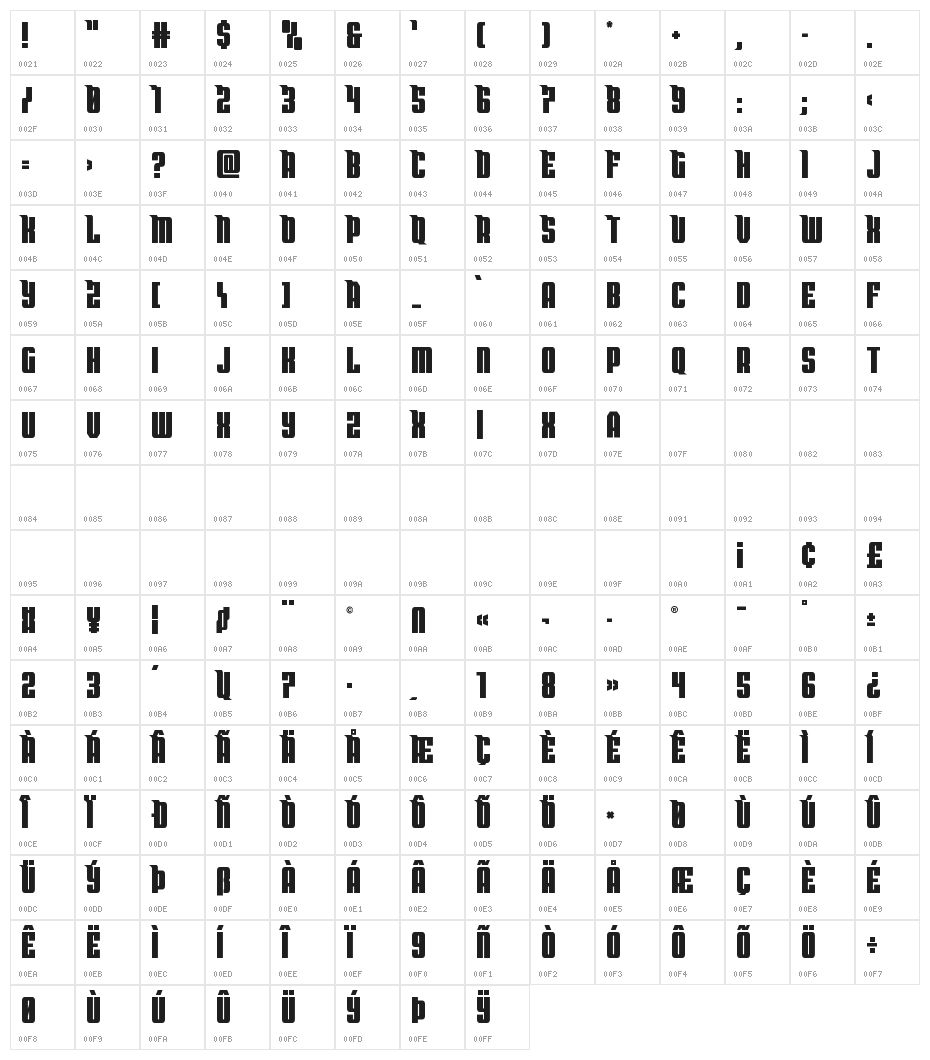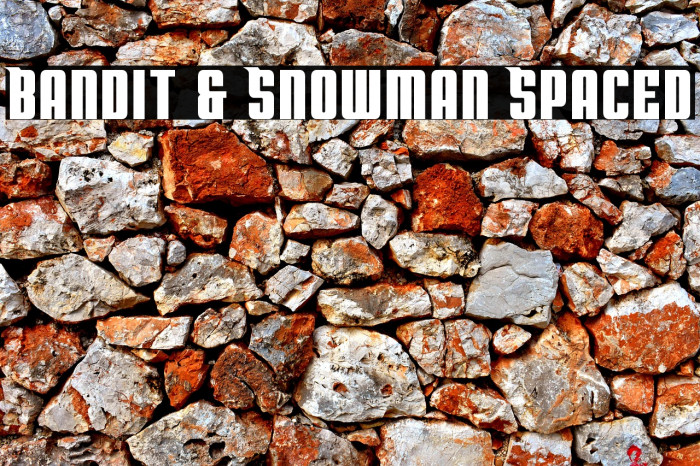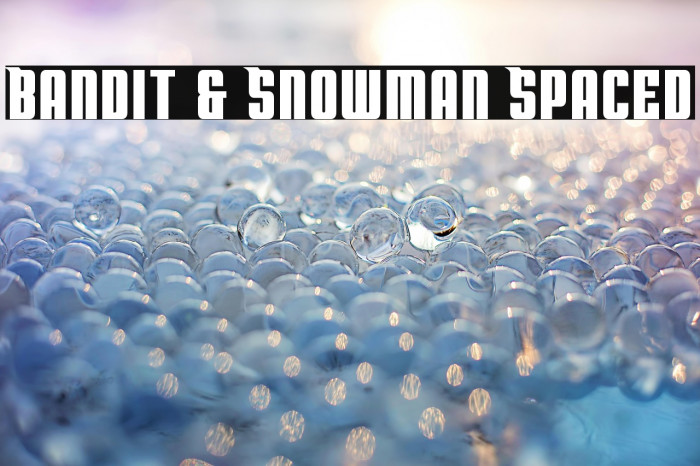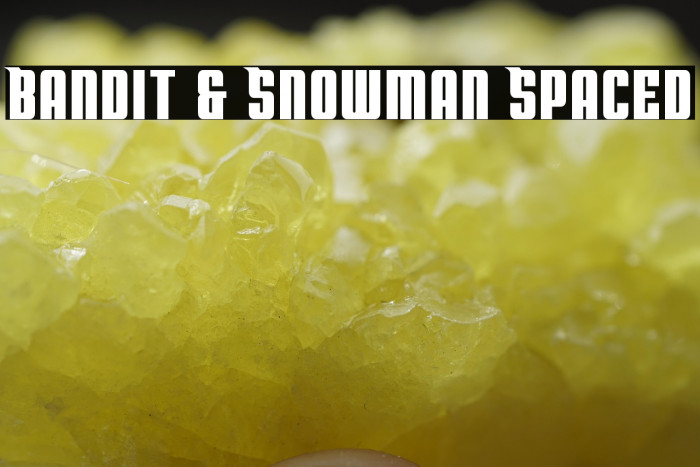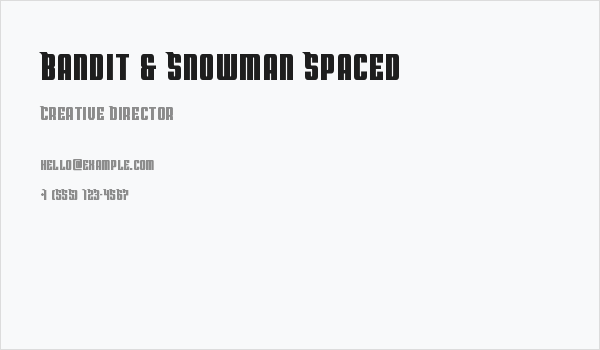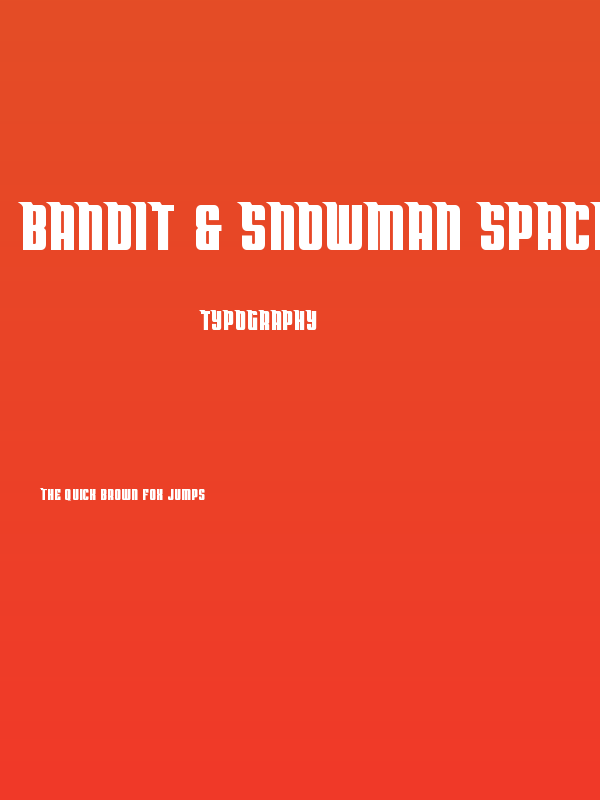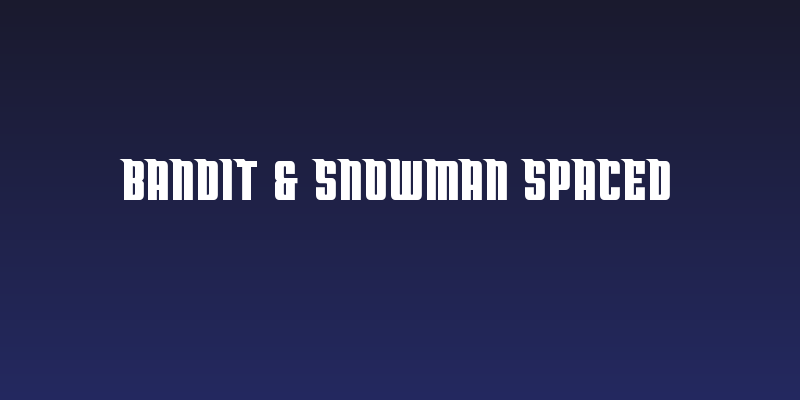
Bandit & Snowman Spaced Font
Bandit & Snowman Spaced Description
This font features bold, blocky characters with a strong presence, making it ideal for attention-grabbing designs. The letters are uniformly wide, with a consistent stroke thickness that gives them a robust and sturdy appearance. The uppercase and lowercase letters maintain a similar height, enhancing the font's cohesive look. The numbers and special characters are designed to match the boldness of the alphabet, ensuring a uniform style across all characters. The font's geometric shapes and sharp edges contribute to its modern and industrial feel, making it suitable for projects that require a strong visual impact.
| Proposed Projects | Ideal for posters, logos, headlines, and branding materials that require a strong visual impact. |